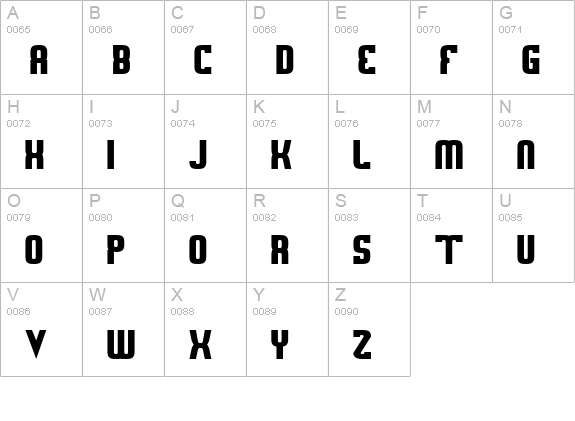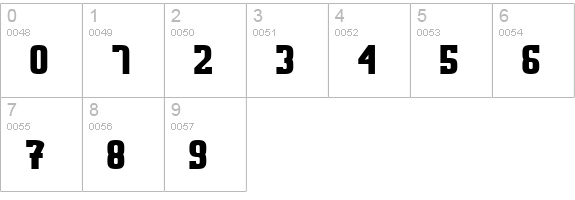
Sweden Funkis Regular is the standard, neutral variant in the Sweden typeface family \xE2\x80\x94 well suited to general body text, paragraphs, and standard typographic work.
Sweden Funkis Regular is a stylish and modern font that exudes sophistication and elegance. With its clean lines and balanced proportions, this versatile typeface is perfect for a wide range of design projects. Whether you're creating a sleek logo, elegant invitations, or eye-catching posters, Sweden Funkis Regular will add a touch of class to your work. The best part? Sweden Funkis Regular is available for free download at FontsMarket.com. So go ahead and elevate your designs with this beautiful font without any extra cost. Don't miss out on the opportunity to enhance your projects with the timeless charm of Sweden Funkis Regular. Download it now and let your creativity shine!